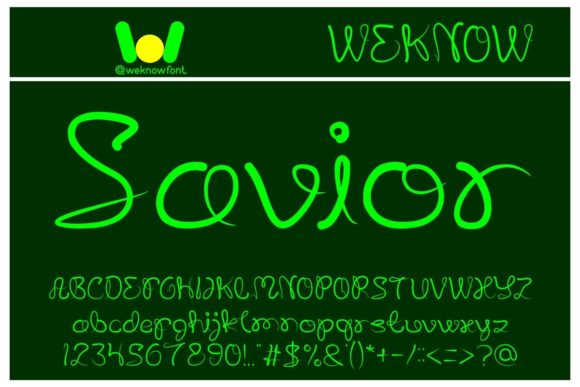
Step into the enchanting realm of Savior Font, a captivating script typeface that will ignite your imagination and elevate your designs. With its graceful curves and alluring round letters, Savior Font dances across the page like a gentle breeze, adding a touch of elegance and whimsy to every creation.
Indulge in the boundless possibilities of Savior Font, a versatile script that lends its charm to a myriad of design endeavors. Whether you're crafting heartfelt wedding invitations, expressing gratitude with thank you cards, or capturing the essence of your brand with logos and business cards, Savior Font is the perfect choice to add a touch of sophistication and personal flair.
Prepare to be captivated by the beauty of Savior Font, a script typeface that will transform your designs into works of art. Its delicate strokes evoke a sense of intimacy and warmth, making it the ideal choice for heartfelt messages and special occasions. Allow Savior Font to elevate your words, adding a touch of enchantment to every letter and phrase.